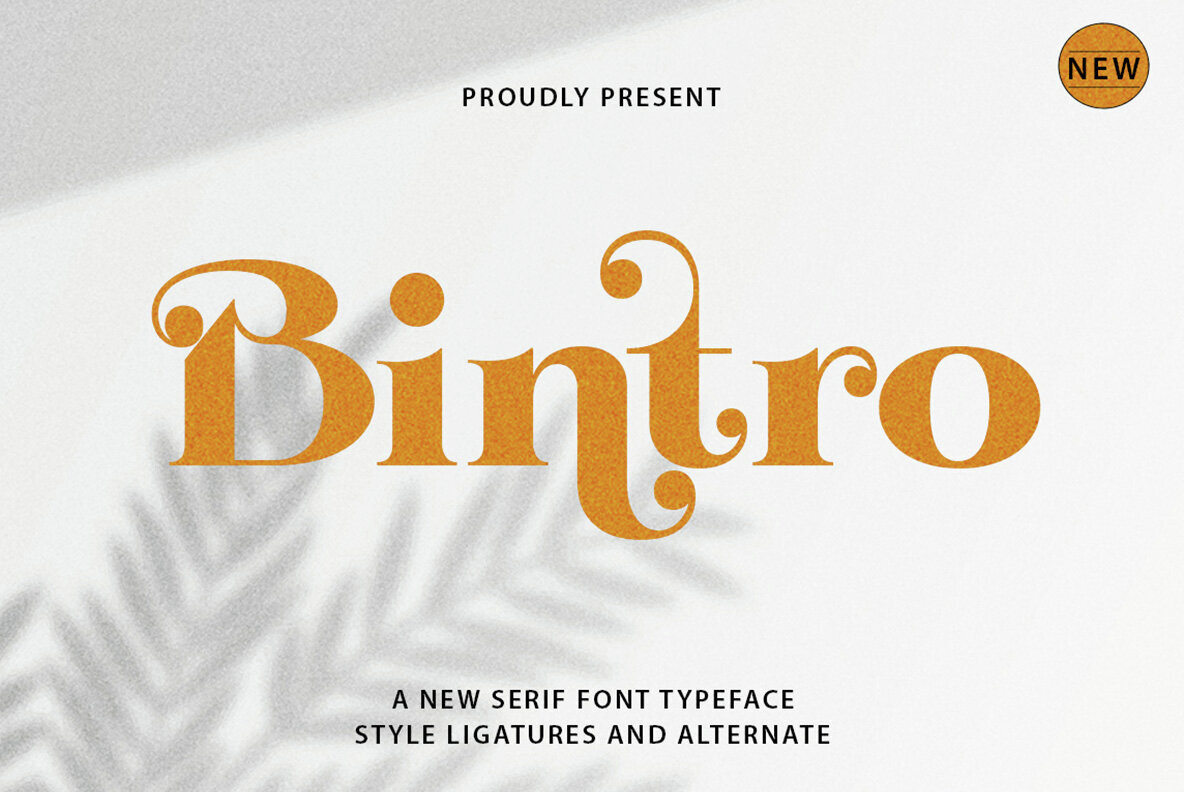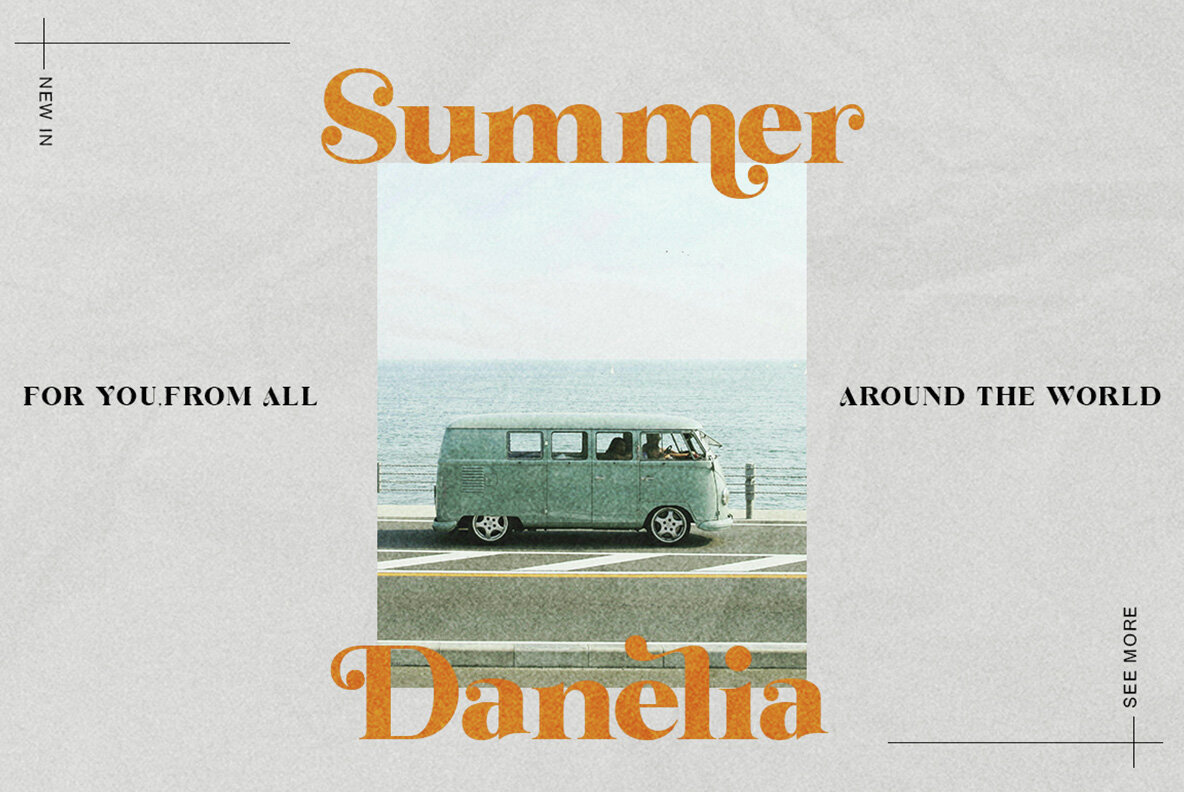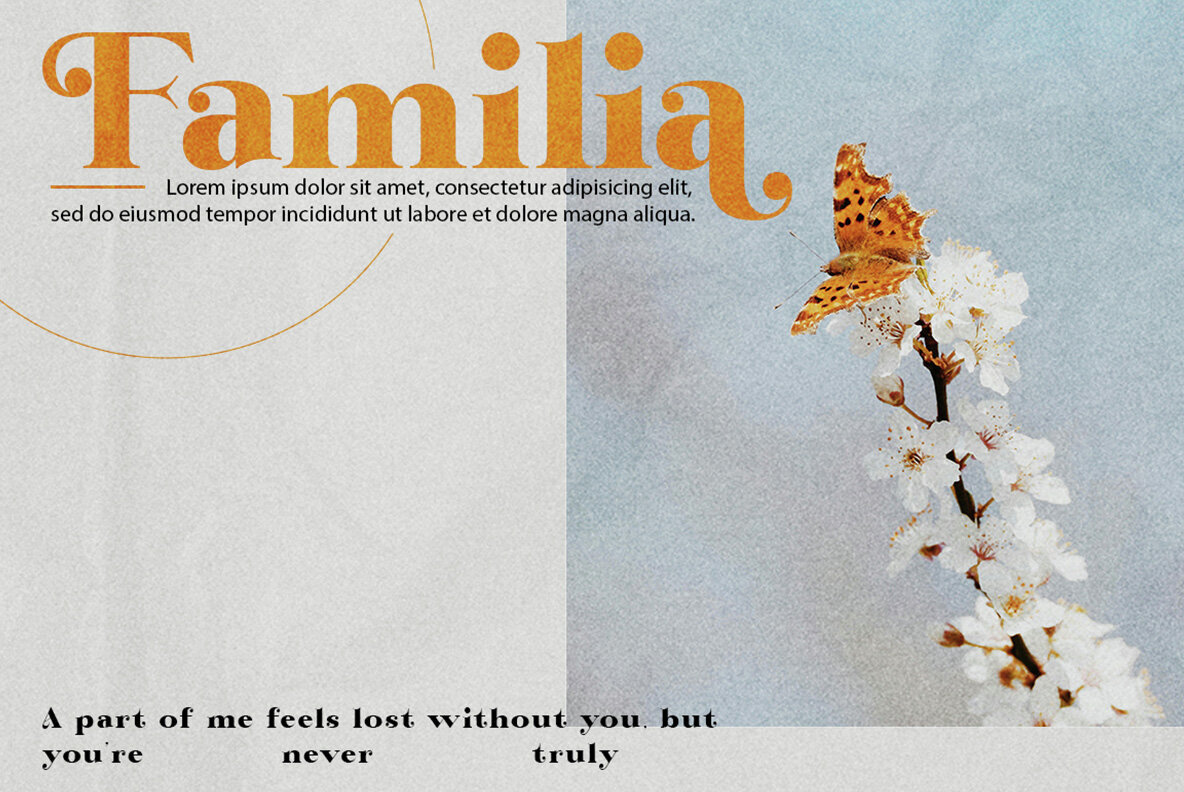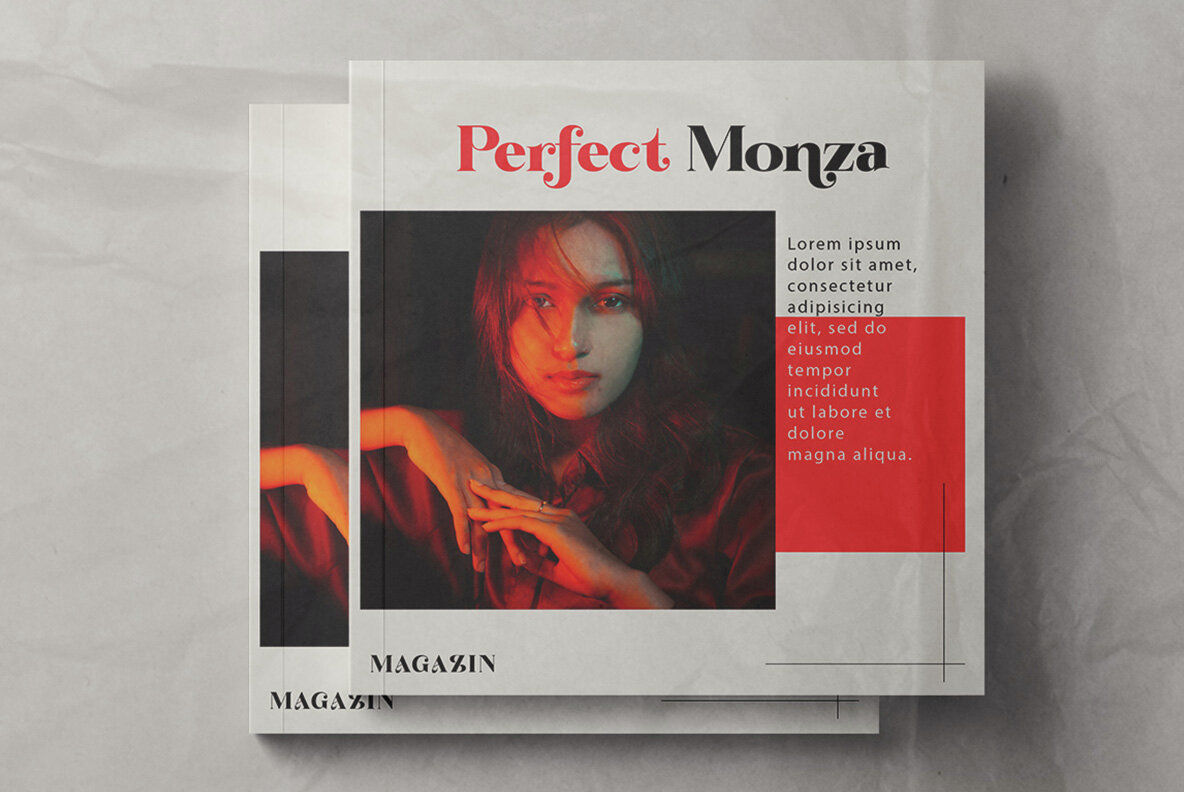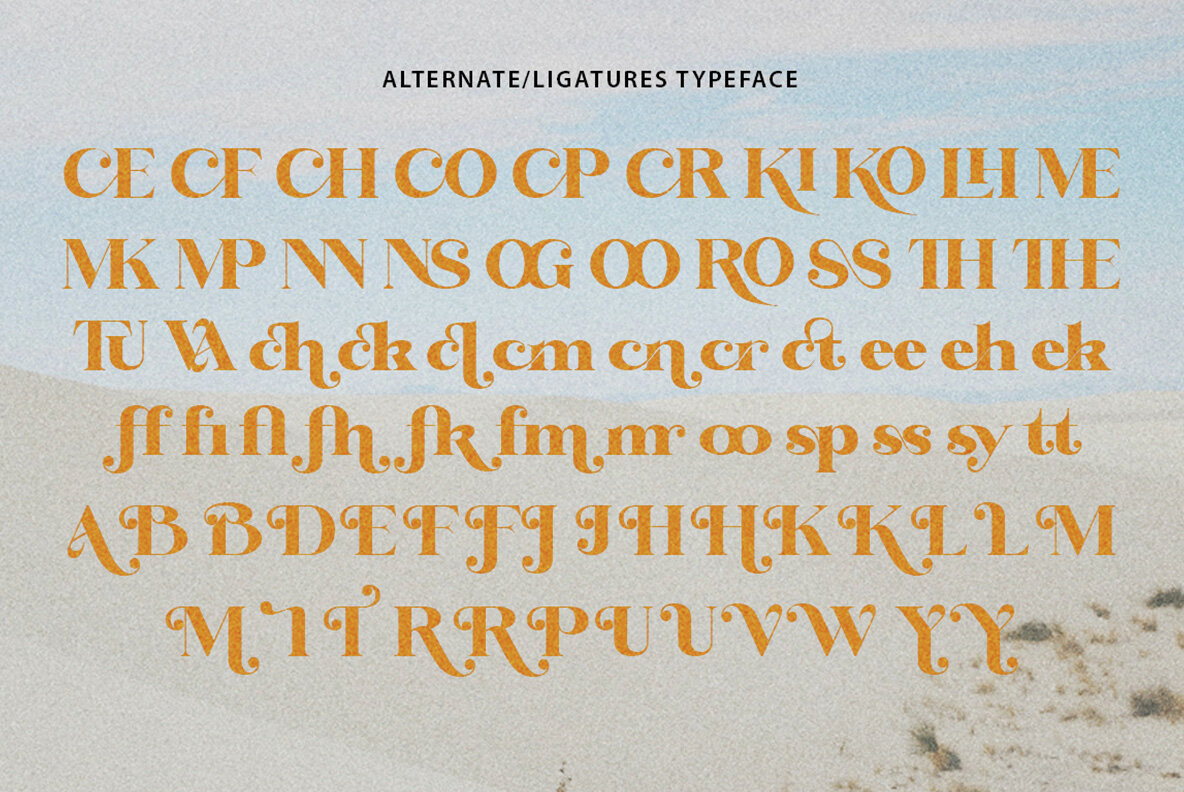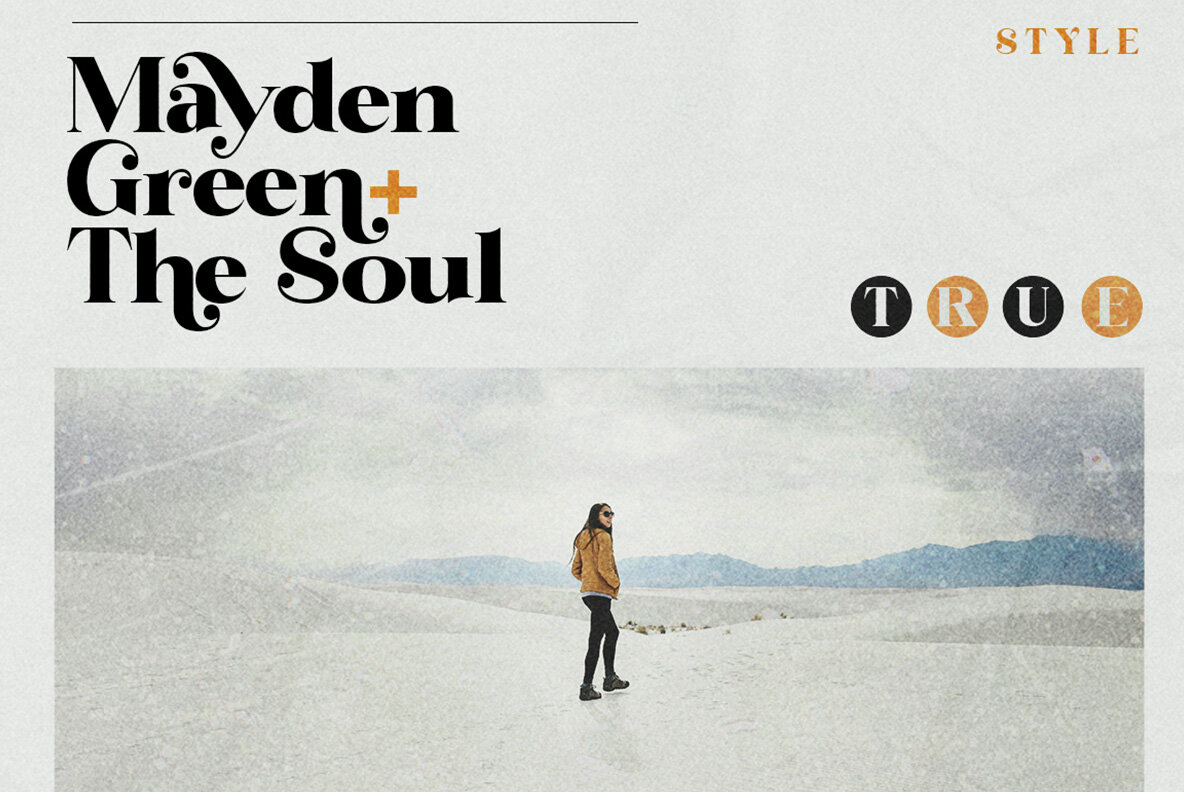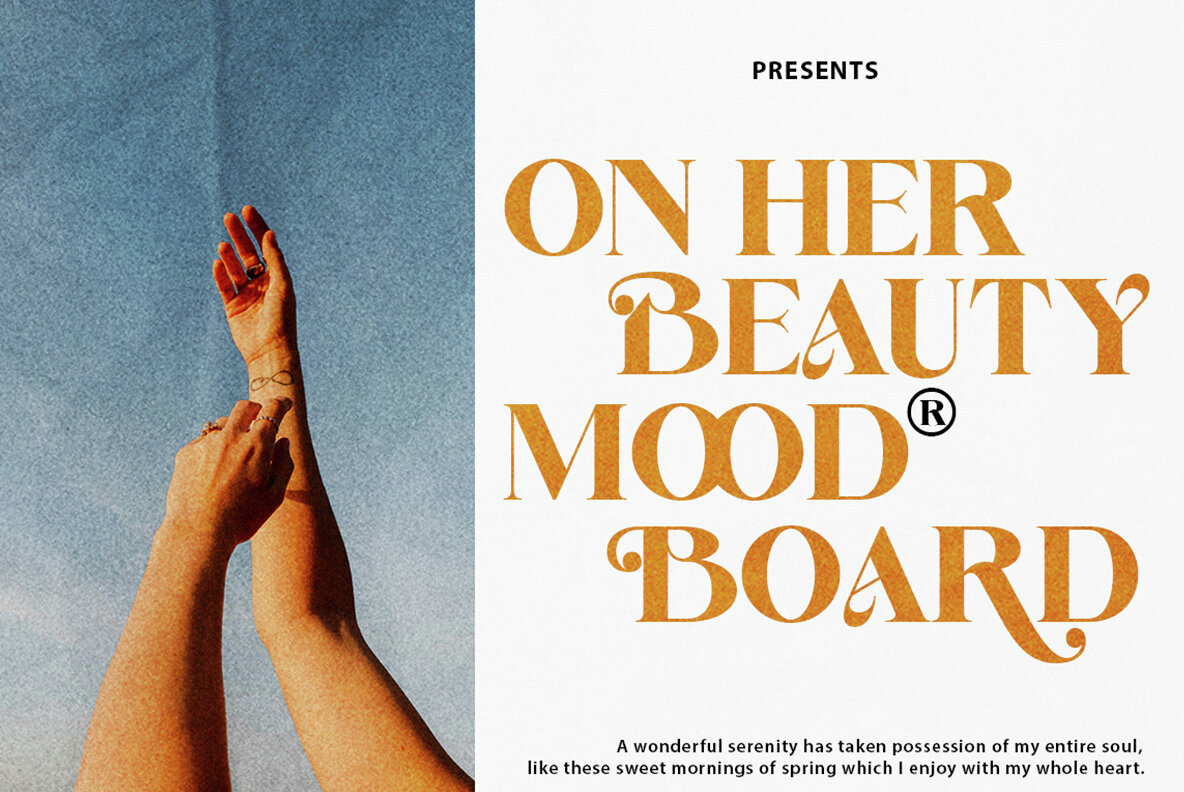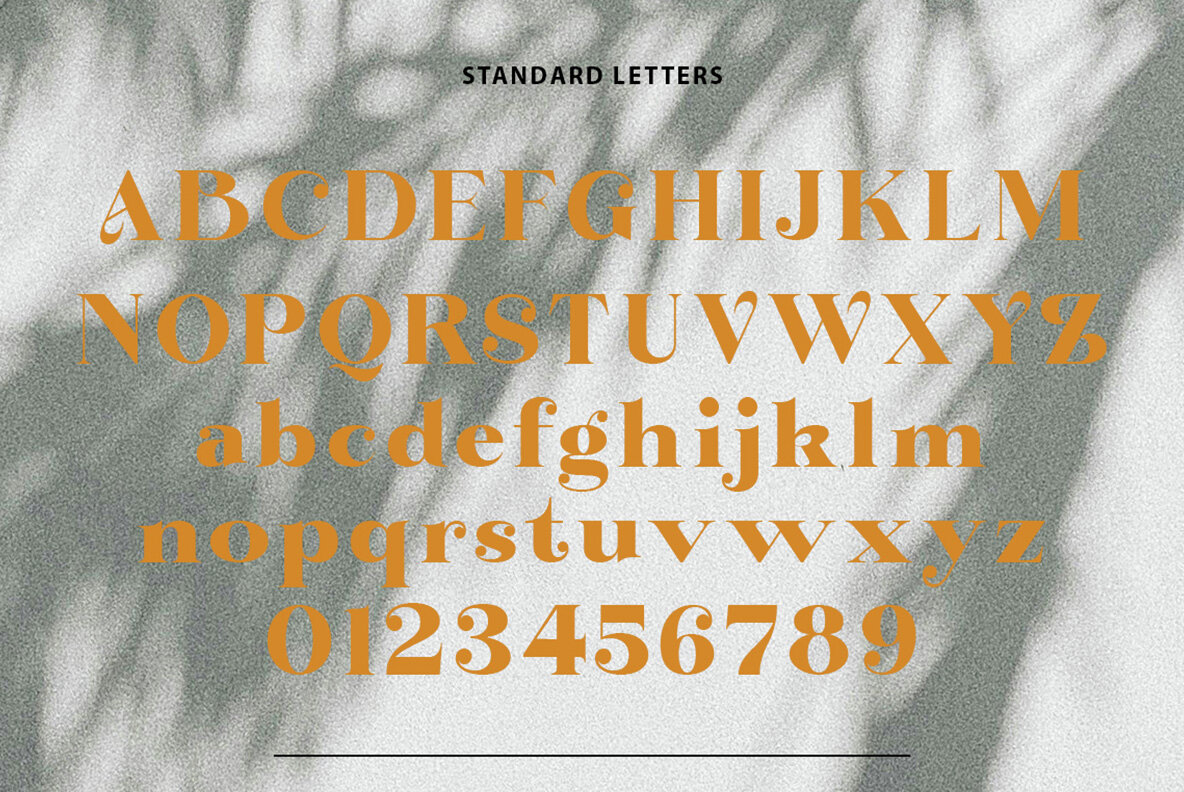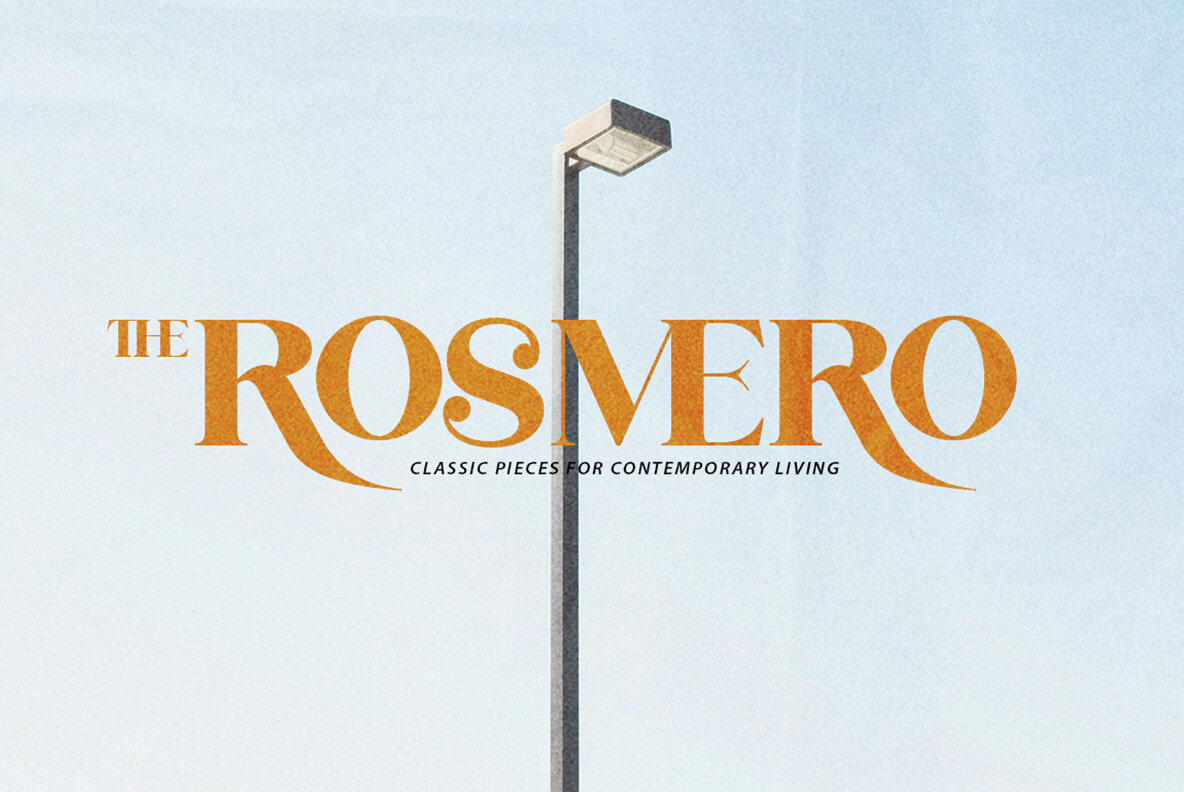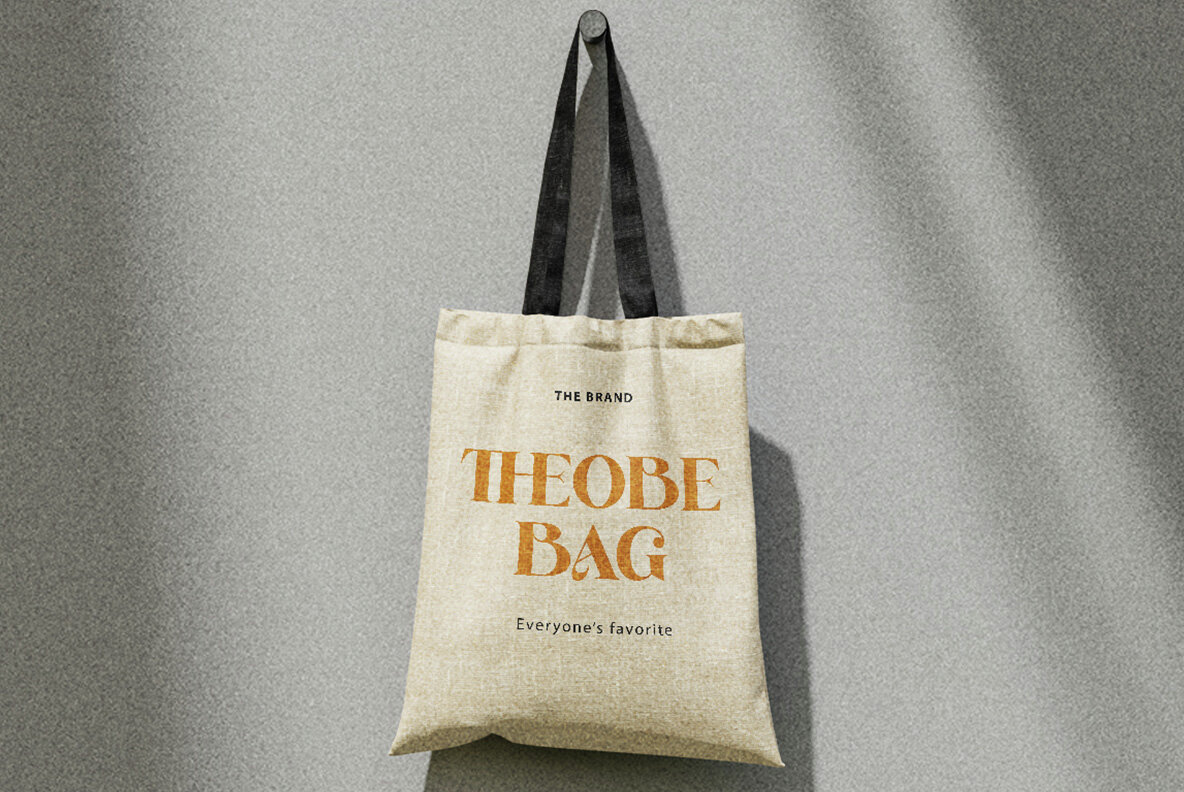
Bintro Font: Timeless Elegance
Bintro is a serif typeface exuding elegance and sophistication, perfect for projects demanding a classic touch. Its distinctive serifs, the small decorative strokes at letter edges, imbue a luxurious and professional feel. Ideal for editorial design, branding, and creative endeavors, Bintro enhances any visual element with a timeless allure.
• Elegant serif details
• Classic and sophisticated style
• Perfect for editorial, branding, and luxury projects
• Enhances headlines, logos, and visual elements